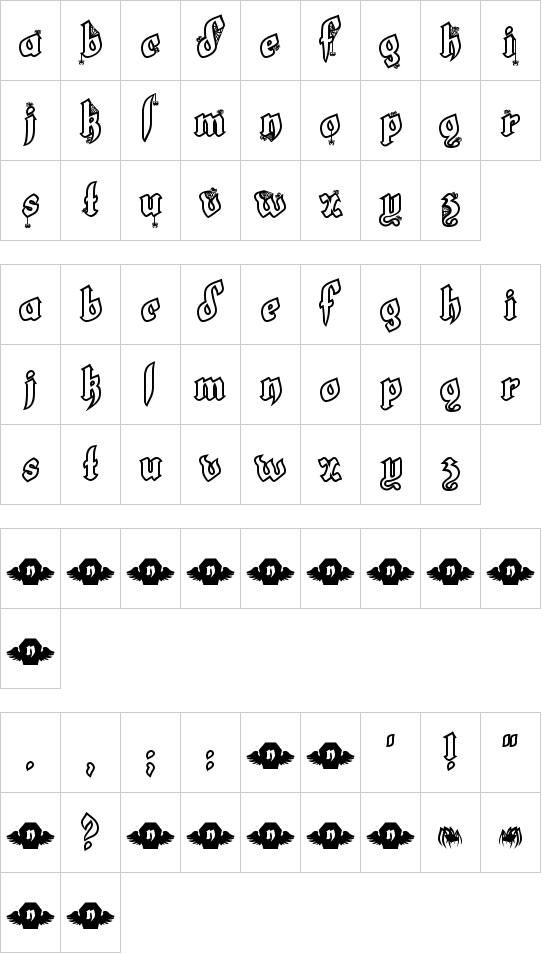
LT White Fang is an Old English outline face with a horror-leaning, animalistic edge, blending blackletter heritage with a feral, beastly mood. The hollow strokes keep the gothic structure visible while clawing it into something ancient and wild, as if the lettering itself had teeth and matted fur.
Use LT White Fang for fantasy game titles, horror posters, gothic branding, and dark album covers where blackletter meets something untamed. The font is free to download as a TrueType file, and you can preview it with your own text first to see how its hollow, feral letterforms read across a title or short phrase.